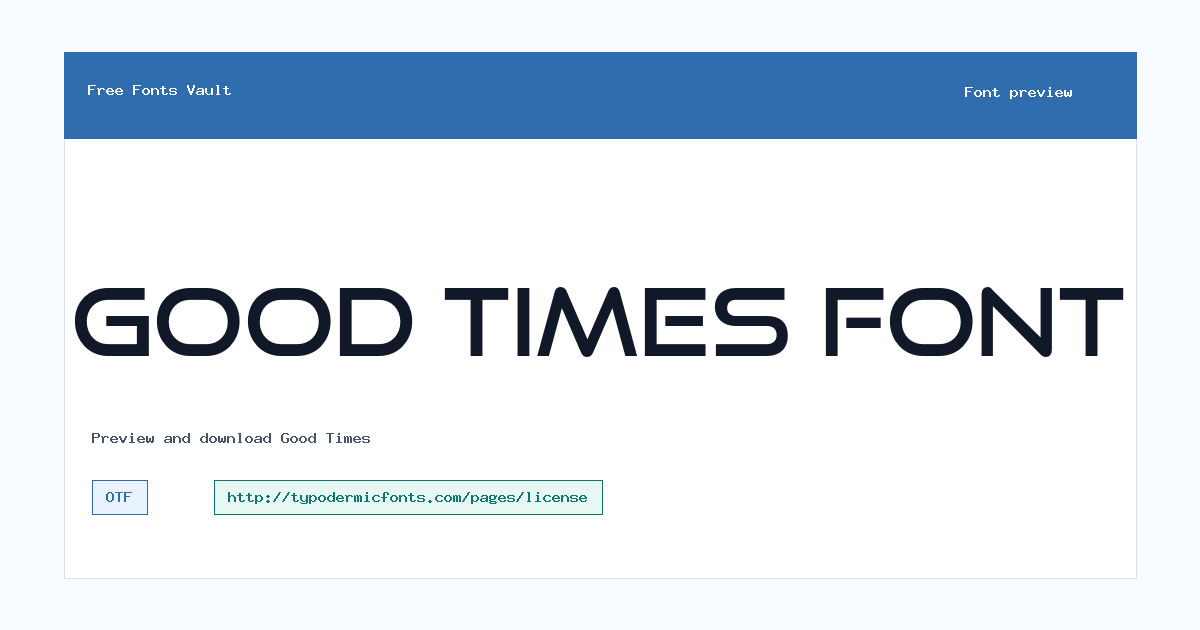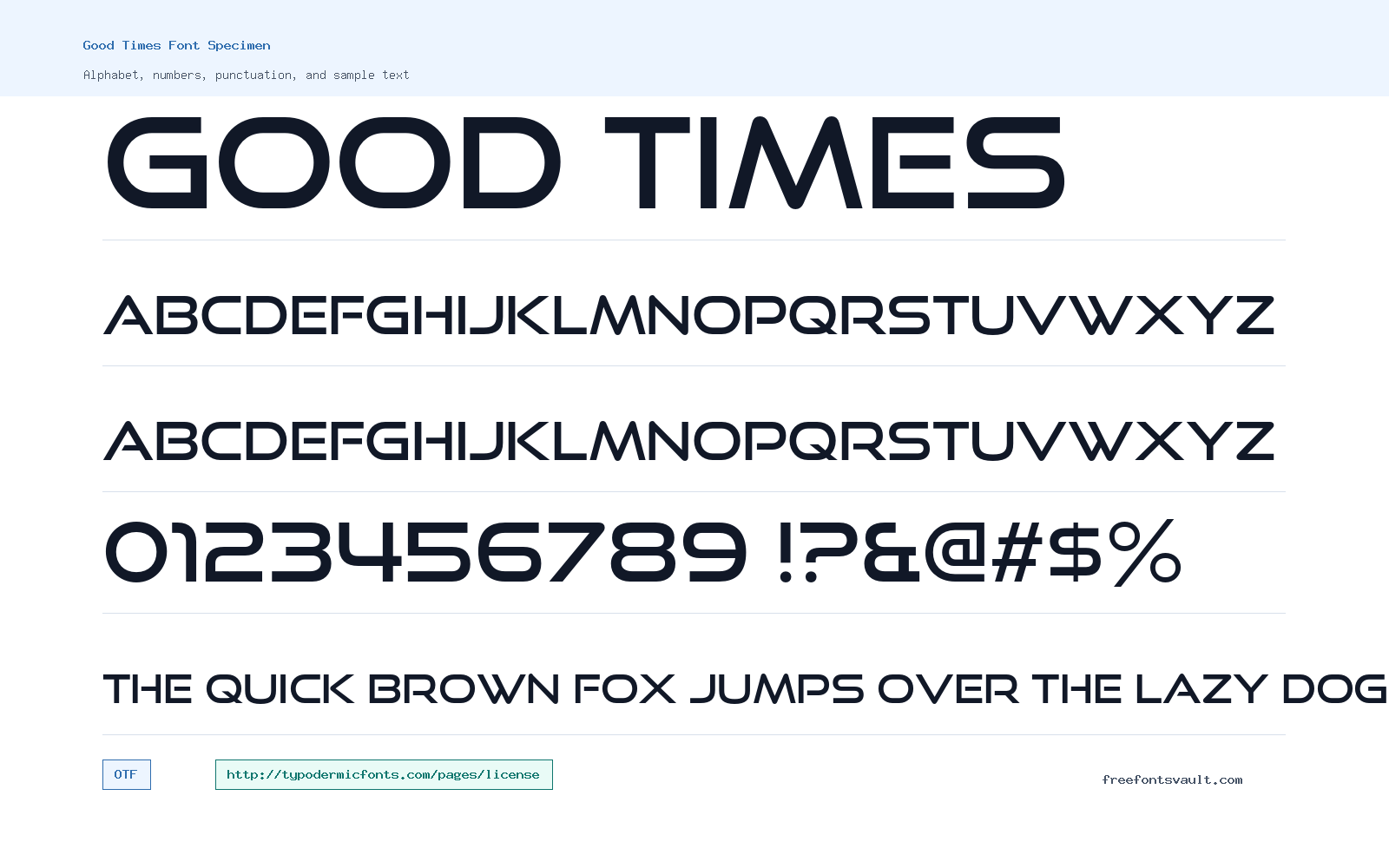
Good Times
- Designer Ray Larabie
- Foundry Ray Larabie
Good Times font.
Good Times is a wide techno sans serif by Ray Larabie, built around smooth capsule-like shapes, straight horizontals, and a fast, engineered look.
About Good Times
Good Times has a clean science-fiction feel without looking overly decorative. The letters are broad, rounded at the ends, and shaped with a sense of motion, which makes the font work well for short titles, game-style interfaces, racing graphics, technology themes, and bold display text. Typodermic describes the family as having aerodynamic forms, automotive influence, rounded ends, and wide proportions, and those traits are easy to see in the Regular style.
When using Good Times in a real layout, compare Regular with your supporting typeface before export. Its squared sci-fi forms can dominate a page, so keep it for the main title, logo-style text, or short labels and use a quieter sans serif for instructions or paragraphs.
- Wide techno letterforms with rounded terminals and a streamlined shape
- Works well for futuristic, racing, industrial, and game-inspired typography
- Strong horizontal structure that gives titles a clean engineered tone
- Technology logos and product-style headings
- Racing, automotive, and motorsport graphics
- Video game HUD text, sci-fi titles, and interface mockups
- Posters, banners, badges, thumbnails, and short display lines
Good Times is by Ray Larabie of Typodermic Fonts.
Use Good Times for short, high-impact text rather than body copy. Its wide proportions need space, so try modest tracking and avoid squeezing it into narrow layouts. Pair it with a neutral sans serif for paragraphs, menus, or small captions.
Who designed Good Times?
Good Times was designed by Ray Larabie and is associated with Typodermic Fonts.
What kind of font is Good Times?
Good Times is a wide techno sans serif with rounded ends, straight horizontals, and a streamlined, futuristic look.
Is Good Times good for body text?
It is better for headings, logos, and short display text. For paragraphs or long reading, use a simpler companion font.